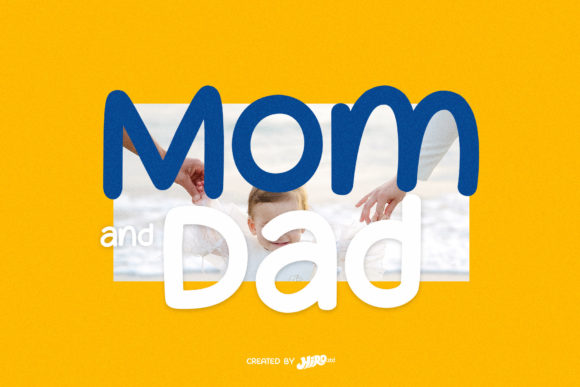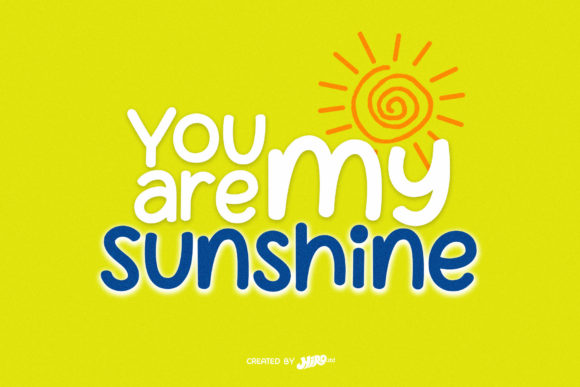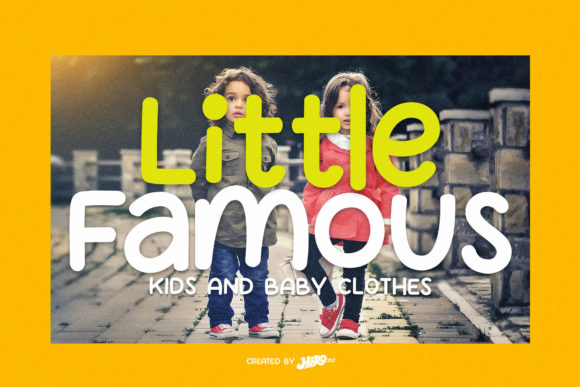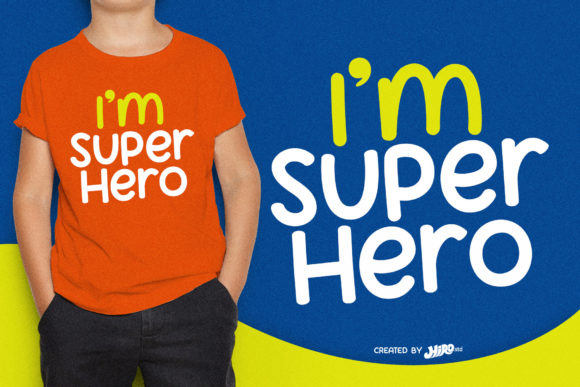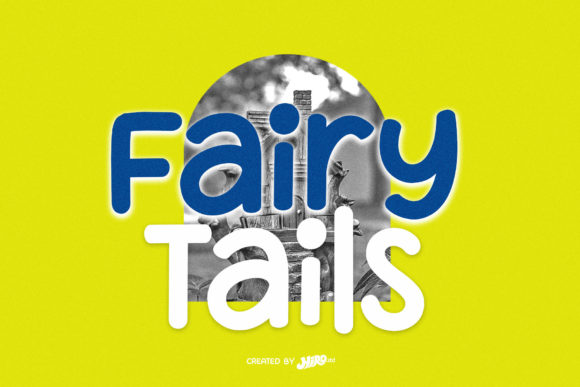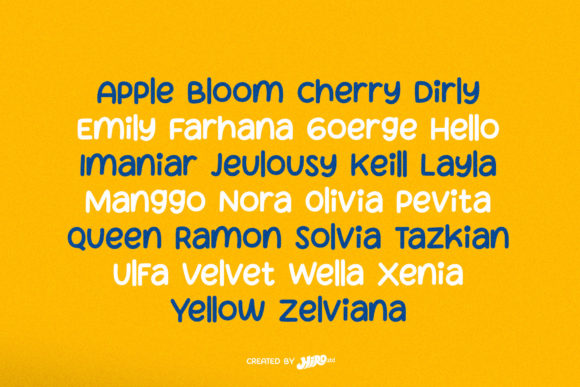
Introducing Child Island Font: The Perfect Blend of Cuteness, Nature, and Trendiness
Are you a designer, crafter, or digital artist looking for a font that can add a touch of personality to your projects? Look no further than Child Island Font! This adorable display font is designed to bring a sense of cuteness, natural charm, and relaxation to your designs, making it perfect for a wide range of applications.
What Makes Child Island Font So Special?
Child Island Font is a unique and versatile font that boasts the perfect amount of trendiness. Its design is carefully crafted to evoke a sense of playfulness and friendliness, making it an excellent choice for projects that require a lighthearted and approachable tone. Whether you’re working on a crafting project, digital design, presentation, or greeting card, Child Island Font is sure to impress.
Key Features of Child Island Font
- Cute and Playful Design: Child Island Font features a delightful design that’s sure to capture the attention of your audience. Its playful curves and lines make it perfect for projects that require a touch of whimsy.
- Natural and Relaxed Feel: The font’s natural and relaxed feel makes it ideal for projects that require a sense of calmness and serenity. It’s perfect for designs that need to convey a sense of friendliness and approachability.
- Trendy and Modern: Child Island Font is designed to be trendy and modern, making it perfect for projects that require a fresh and contemporary look.
- Versatile and Adaptable: This font is highly versatile and adaptable, making it suitable for a wide range of applications, from crafting and digital designing to presentations and greeting cards.
Use Cases for Child Island Font
Child Island Font is an excellent choice for various design projects, including:
- Crafting Projects: Add a touch of personality to your crafting projects, such as handmade cards, scrapbooking, and DIY decorations.
- Digital Designing: Use Child Island Font to create stunning digital designs, including social media graphics, blog posts, and website headers.
- Presentations: Add a playful and engaging touch to your presentations, making them more enjoyable and memorable for your audience.
- Greeting Cards: Create beautiful and heartfelt greeting cards for special occasions, such as birthdays, holidays, and weddings.
Why Choose Child Island Font?
With so many fonts available, why choose Child Island Font? Here are just a few reasons:
- Unique Design: Child Island Font boasts a unique and distinctive design that sets it apart from other fonts.
- High-Quality: Child Island Font is a high-quality font that’s designed to deliver exceptional results in your designs.
| Font Name | Child Island Font |
| Author | HIRO.std |